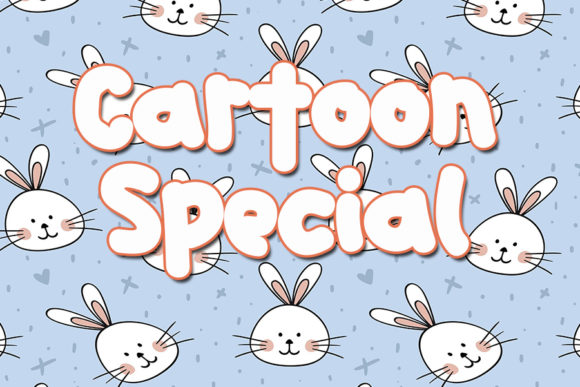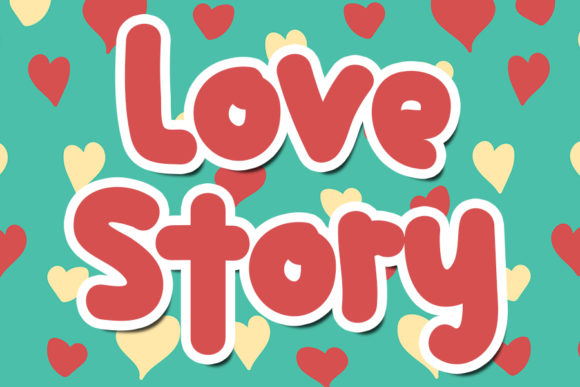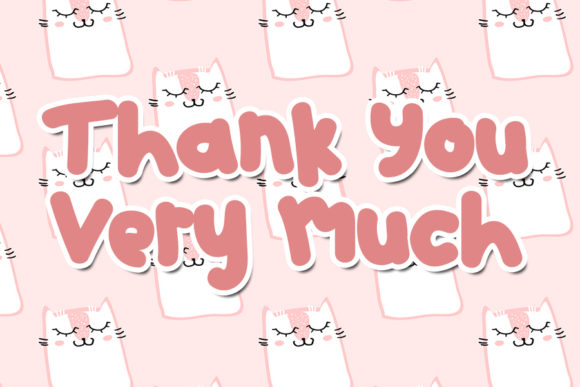
Introduction to Kiko Milk Font
You’ve just landed on the perfect idea for your next creative project, but you’re stuck on one thing: the font. The words dance in your head, but they’re just not quite right until you see them in the perfect typeface. That’s where Kiko Milk Font comes in – a bold and playful display font that’s sure to bring your designs to life.
Kiko Milk Font is more than just a pretty face; it’s a valuable resource for designers looking to add some extra flair to their work. With its high-quality design and transparent background, this font is perfect for making original and outstanding designs that really stand out from the crowd. And the best part? It’s available for free download, making it an accessible and affordable addition to any designer’s toolkit.
Kiko Milk Font
- High-quality design resource suitable for various creative projects, including digital art and graphic design.
- Features a transparent background, allowing for easy integration into different design layouts.
- Supports a range of languages, including Latin-based alphabets and Cyrillic scripts.
- Available in a single font size, but can be easily scaled to suit various design needs.
- Resolution: 300 DPI, suitable for high-quality print and digital applications.
Honest Review: Kiko Milk Font
I recently stumbled upon the Kiko Milk Font, a free download that caught my attention with its playful and modern design. As a designer, I appreciate high-quality design resources like this one, which can add a personal touch to any creative project.
The Kiko Milk Font features a transparent background, allowing it to seamlessly integrate into any design. This versatility makes it a valuable addition to my design arsenal.
- Playful and modern design that’s perfect for creative projects ✨
- High-quality typography that’s crisp and clear ✨
- Transparent background for easy integration ✨
- Only a few font weights available ⚠️
- No extended character set ⚠️
Overall, I’m impressed with the Kiko Milk Font. It’s a great free download that can add a fun and modern touch to any design. While it may have some limitations, it’s still a valuable resource for designers looking to add some personality to their creative projects.
Common Use Cases for Kiko Milk Font
The Kiko Milk Font is perfect for a variety of creative projects, including branding, marketing materials, and digital designs. Its high-quality design and transparent background make it a versatile design resource for any project.